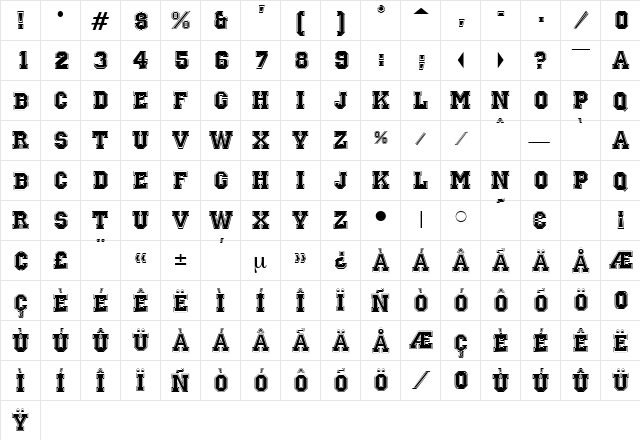
Racing Regular Font Preview
Racing Regular
Design Context for Racing Typeface
Racing is a composed and adaptable typeface that performs quietly and consistently across a wide range of design contexts.